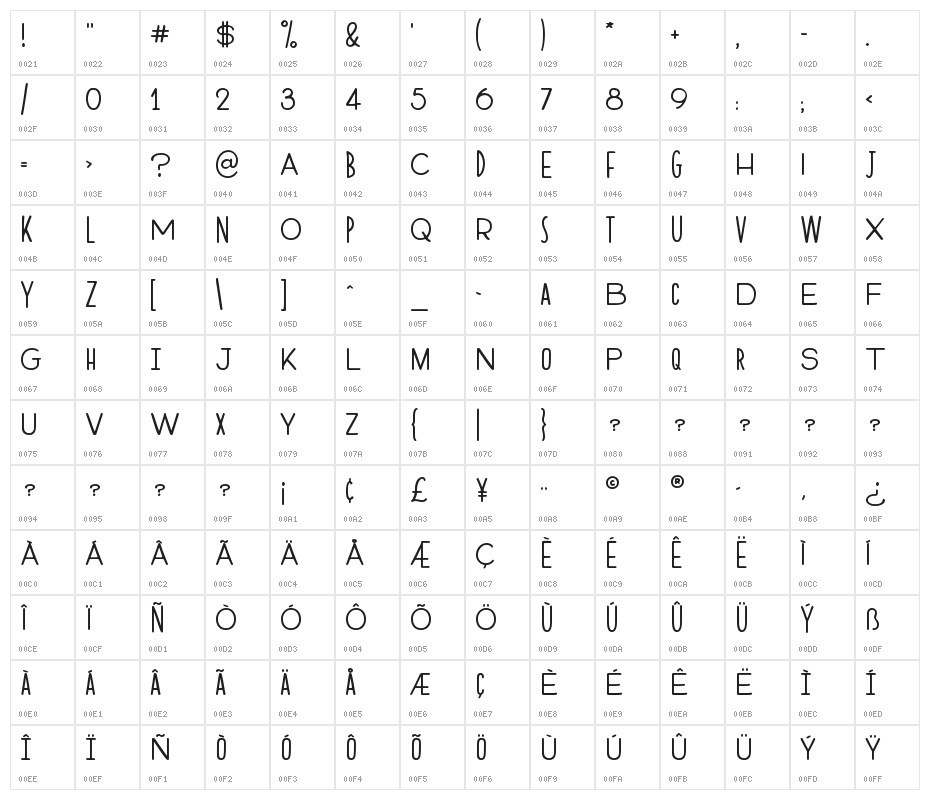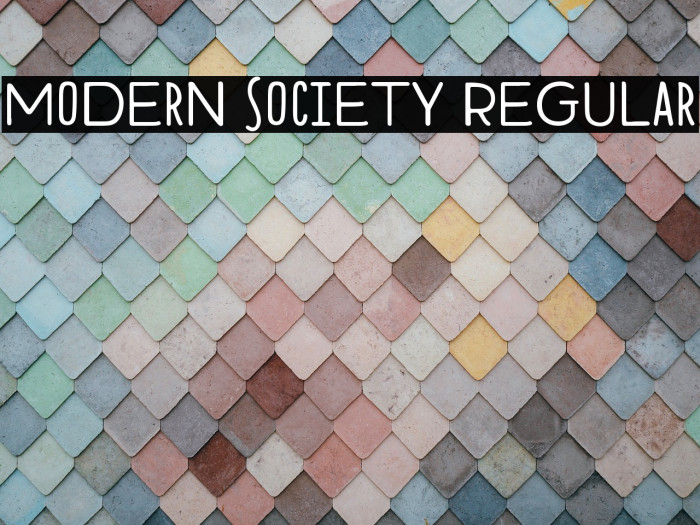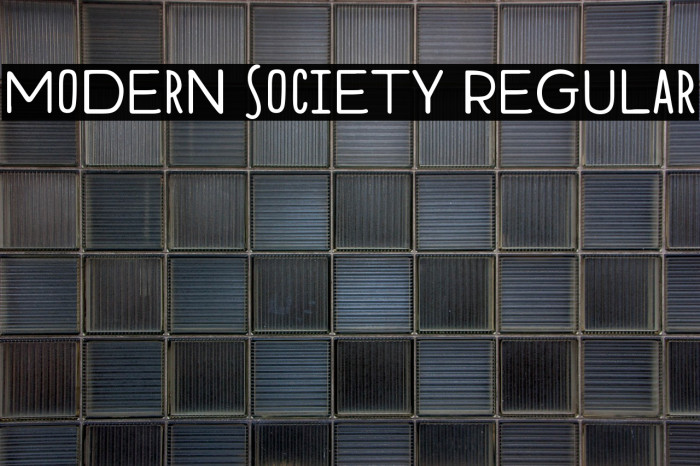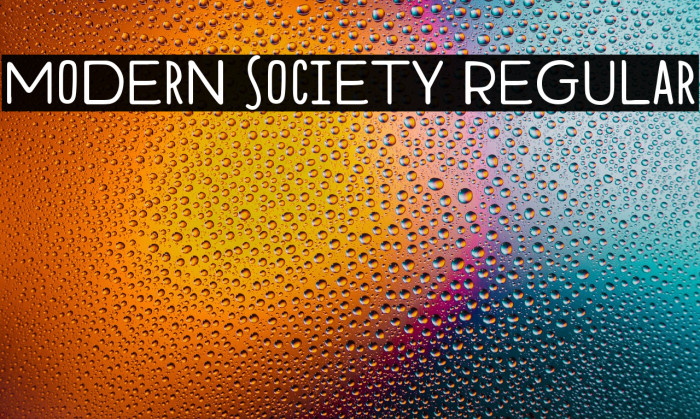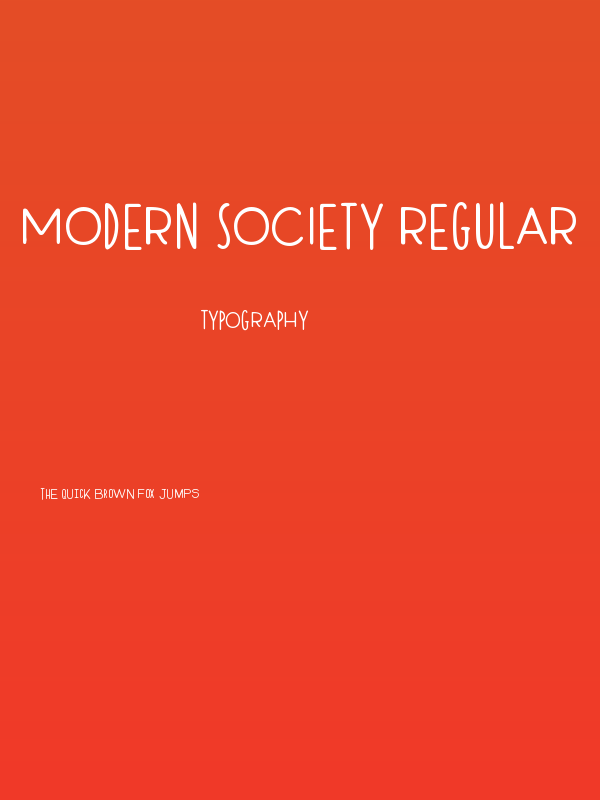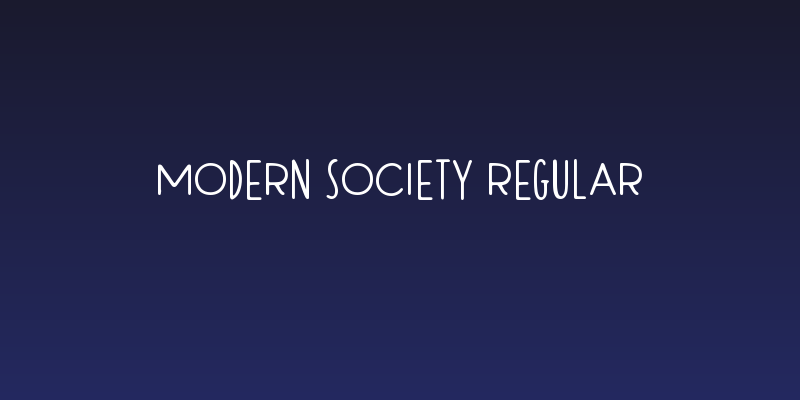
Modern Society Regular Font
Modern Society Regular Description
This font features a playful and modern aesthetic with a handwritten style. The characters are slightly rounded and maintain a consistent stroke width, giving it a casual yet polished appearance. The uppercase and lowercase letters are well-balanced, with a slight slant that adds a dynamic feel. The numerals and special characters are clear and legible, making it versatile for various applications. Its unique style is perfect for projects that require a touch of personality and creativity.
| Proposed Projects | Ideal for greeting cards, invitations, branding projects, and social media graphics. |